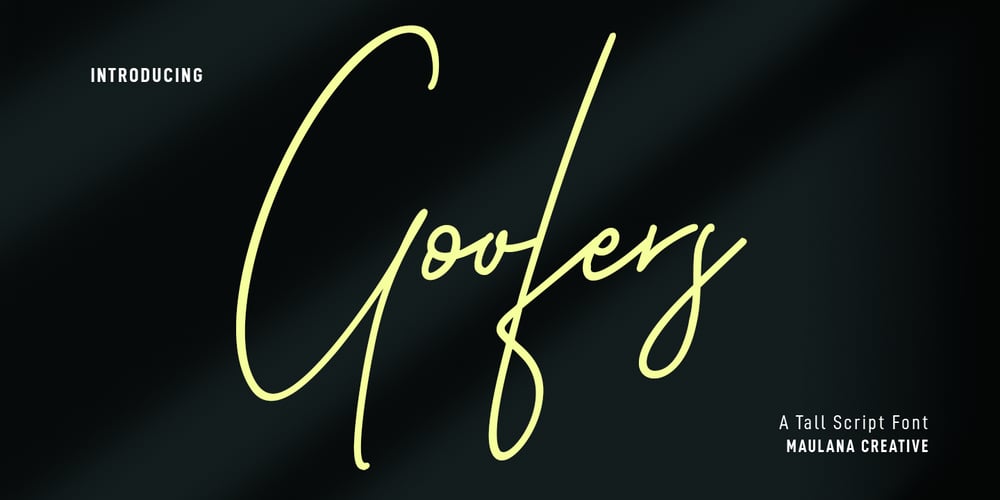
Goofers Font Family was designed by Gilang Maulana and published by Maulana Creative. Goofers contains 2 styles and family package options. Goofers is an unique casual script font. With clean mono-line stroke, fun character with a bit of ligatures and alternates. To give you an extra creative work. Goofers font support multilingual more than 100+ language. This font is good for logo design, Social media, Movie Titles, Books Titles, a short text even a long text letter and good for your secondary text font with sans or serif. Make a stunning work with Gooferss font. Cheers, MaulanaCreative